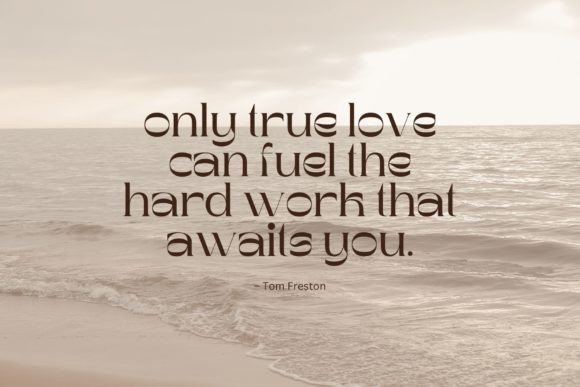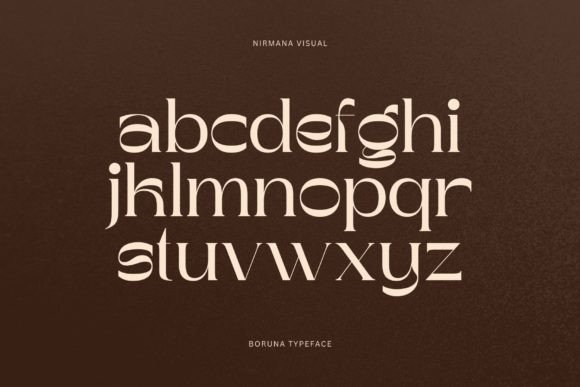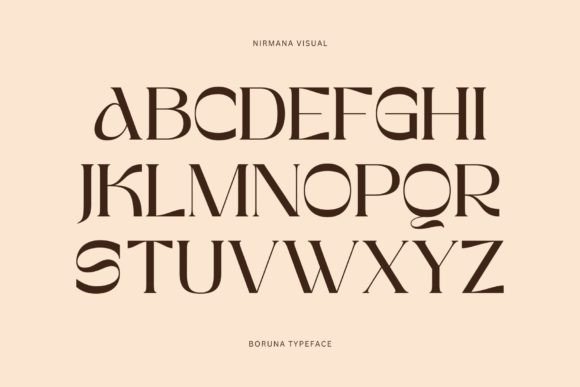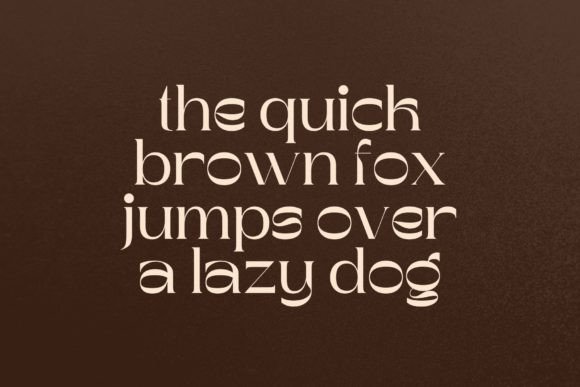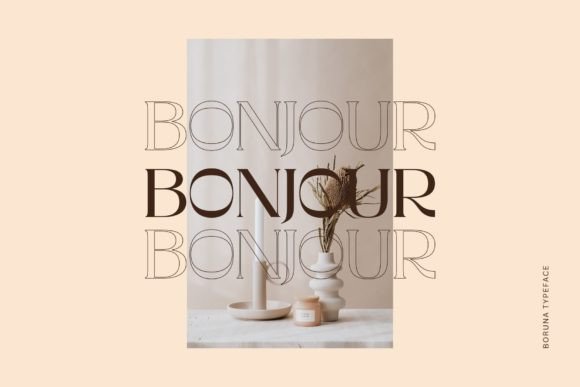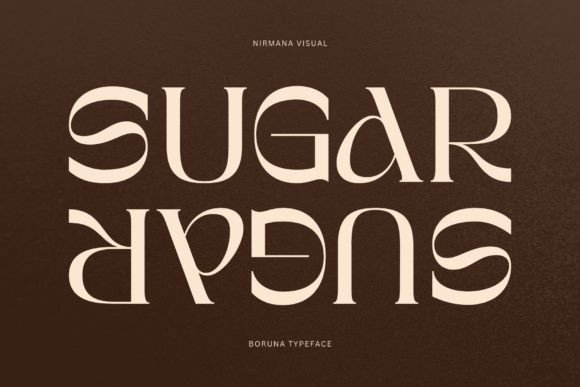
Unleashing the Power of Typography: Introducing Boruna Font
The moment of truth – staring at a blank canvas, a blank page, or a blank screen, waiting for inspiration to strike. As designers, we’ve all been there. And then, it hits us – a spark of creativity that sets our imagination ablaze. For those moments when we need the perfect font to bring our vision to life, we’re excited to introduce you to the Boruna Serif Display Typeface.
Boruna Font is more than just a font – it’s a key to unlocking beautiful typographic harmony in your design projects. Whether you’re creating logos and branding, social media posts, advertisements, or product designs, Boruna offers a unique blend of elegance and sophistication that’s sure to captivate your audience. As designers, we know how valuable it is to have a versatile font that can elevate our work and make it truly stand out.
Boruna Font Key Features
- Font Family: Boruna Font comes in two font families – Regular and Bold.
- Character Set: Supports a wide range of characters, including Latin, Cyrillic, and Greek alphabets.
- Unique Characteristics: Boruna Font features a unique blend of modern and traditional design elements, with a distinctive flair and elegance.
Boruna Font Review
Overall, I’m impressed with the design and versatility of the Boruna Font. ✨ Its elegant and modern style makes it perfect for high-end branding and premium content. Here are some of its standout features:
- Wide range of weights: From thin to extra bold, Boruna Font offers an impressive range of weights to suit various design needs.
- High legibility: The font is highly legible even at small sizes, making it ideal for digital content.
- Unique style: Boruna Font’s modern and elegant style sets it apart from more generic fonts.
- Not suitable for playful content: Boruna Font’s sleek and sophisticated style might not be the best fit for playful or humorous content.
- Limited language support: While Boruna Font supports multiple languages, it might not be as comprehensive as some other fonts.
Overall, I’m a big fan of the Boruna Font. It’s a solid choice for designers looking for a high-quality, modern font that’s perfect for premium branding and content. With a little creativity, you can use it to create stunning designs that stand out from the crowd.
Tips for Getting the Most Out of Boruna Font
Use Boruna Font for headings and titles to add a touch of elegance to your design. Experiment with different font sizes and styles to create visual interest. Use it for body text to create a cohesive and professional look.
Boruna Font is suitable for a variety of designs, including:
- Websites and blogs